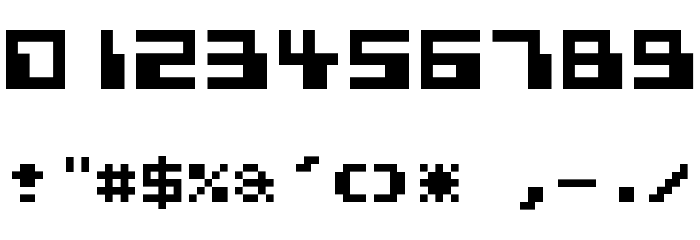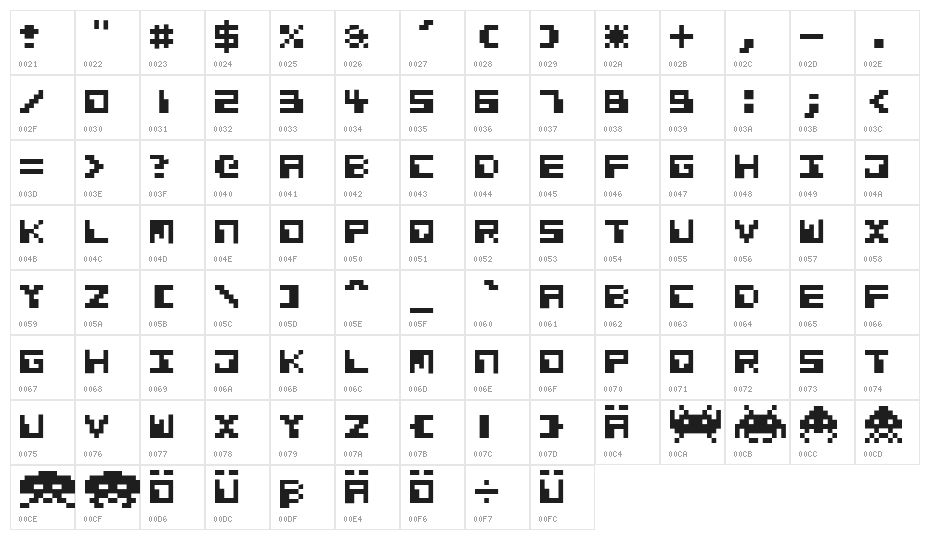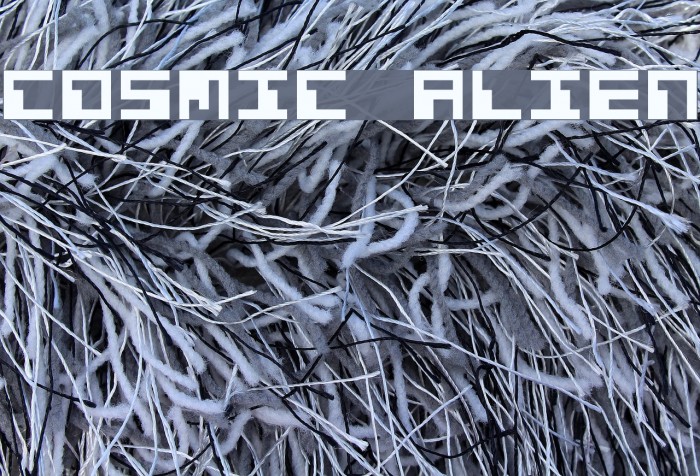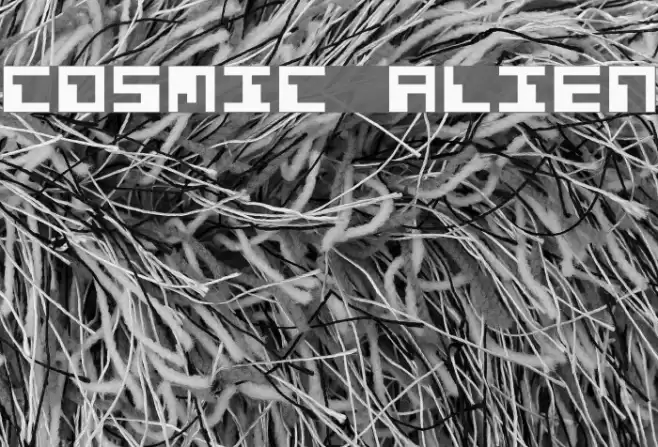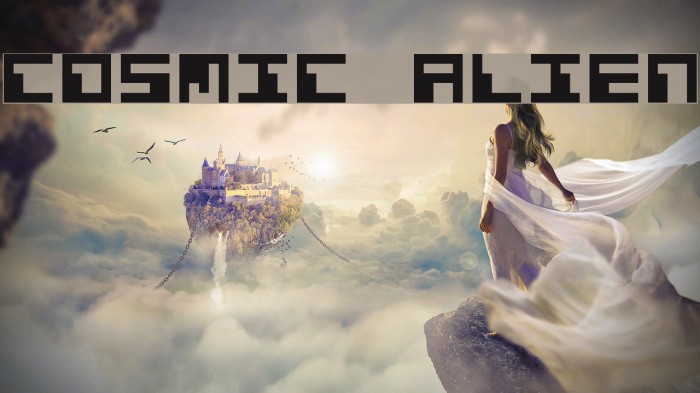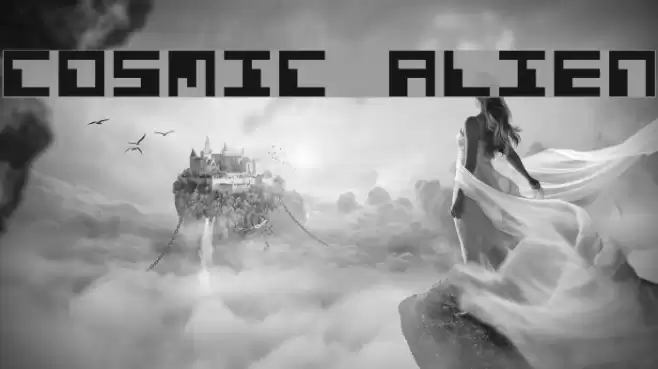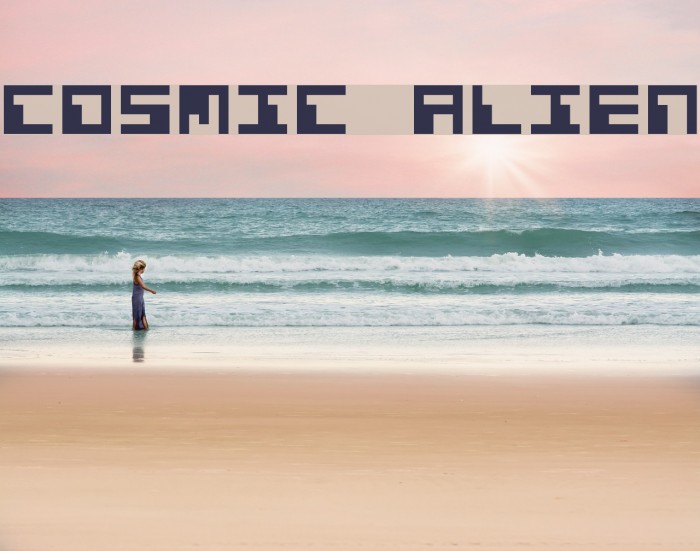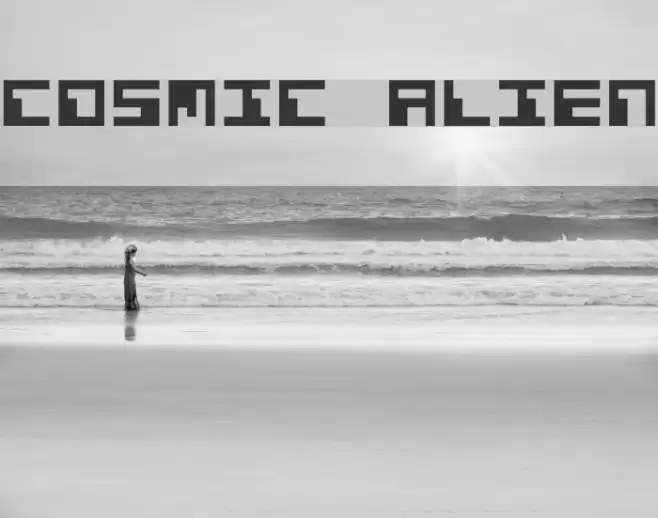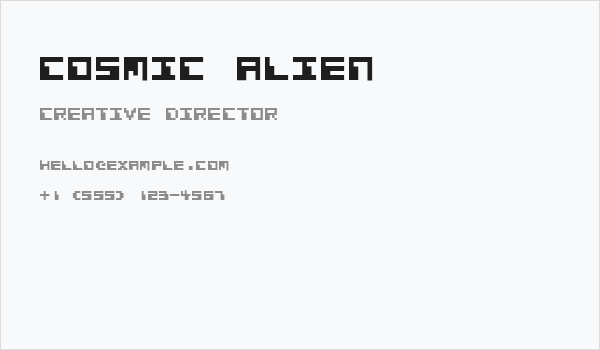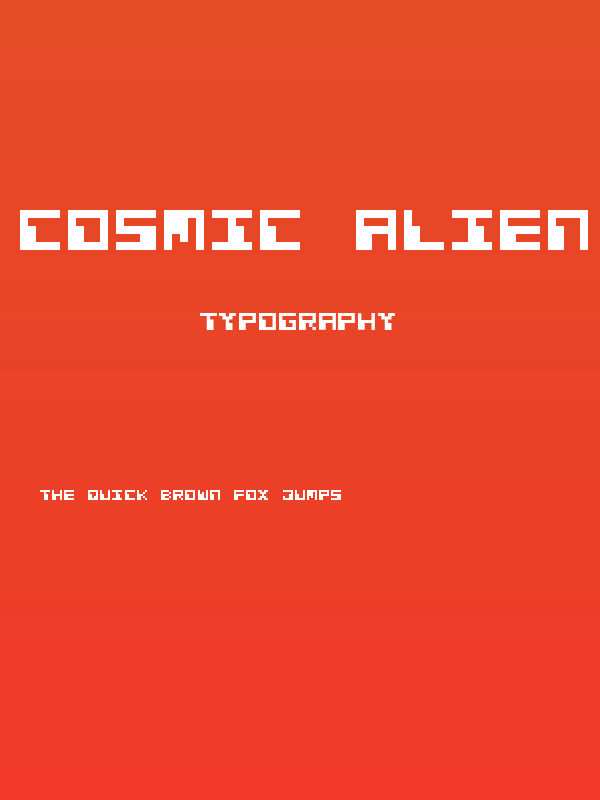
Cosmic Alien Font
Cosmic Alien Description
This font features a bold, pixelated design reminiscent of classic arcade games and retro digital displays. Each character is constructed with a blocky, geometric style, giving it a futuristic and tech-inspired appearance. The uniformity in stroke width across all characters creates a cohesive and structured look. The uppercase and lowercase letters maintain a consistent height, enhancing readability while preserving the font's unique aesthetic. Numbers and special characters are designed with the same pixelated approach, ensuring a seamless integration with the alphabetic characters. This font's distinct style makes it particularly suitable for projects that aim to evoke a sense of nostalgia or a digital, sci-fi theme.
| Overall Style | Retro, Futuristic |
| Use Case | Headlines, Logos, Digital displays |
| Proposed Projects | Ideal for video game design, tech-themed posters, digital art, and retro-style branding. |